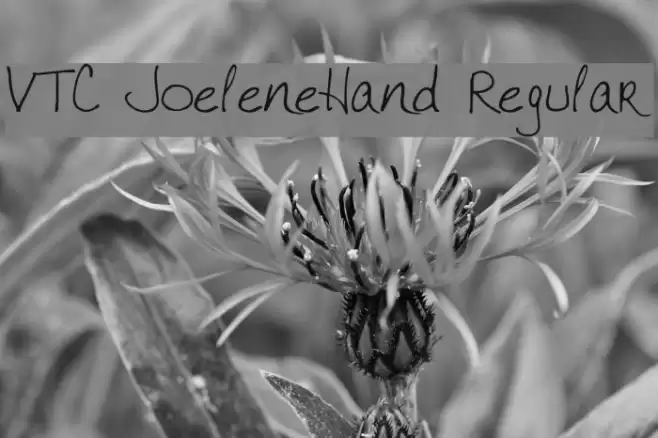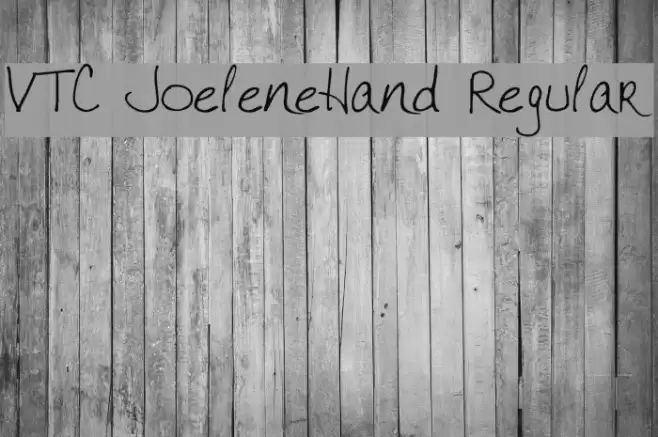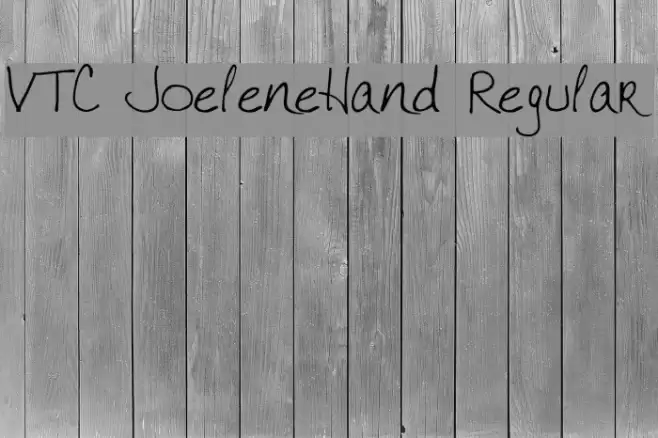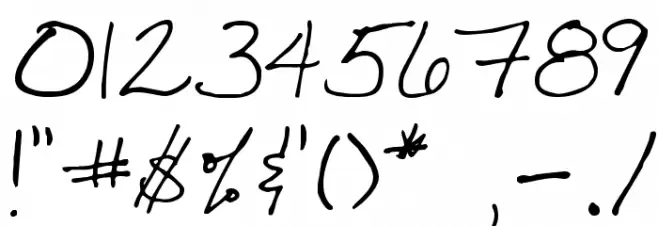
VTC JoeleneHand Regular Font
VTC JoeleneHand Regular Description
This font features a casual, handwritten style that mimics the fluidity and spontaneity of natural handwriting. The letters are slightly slanted, with varying stroke widths that add a dynamic and lively feel. The uppercase and lowercase letters are distinct, with playful loops and curves that give the font a personal touch. The numerals and special characters maintain the same handwritten aesthetic, ensuring consistency across all characters. This font is perfect for projects that require a personal, informal, or creative touch, such as invitations, greeting cards, or artistic designs.
A casual, handwritten font with playful loops and varying stroke widths from Uncategorized fonts.
- Proposed Projects: Ideal for invitations, greeting cards, personal notes, and artistic designs.
- Overall Style: Casual, Artistic
- Use Case: Headlines, Artistic designs, Personal notes